So you're designing your wedding invitations and staring at a blank screen thinking, "Which fonts won't make my invite look like a middle school project?"
After designing wedding invitations for 3+ years and helping over 100+ couples create their dream wedding invitations, I've learned that choosing the right wedding fonts can make the difference between "meh" and "absolutely stunning."
And here's the thing – everyone talks about "best wedding fonts," but nobody tells you why certain fonts work or how to actually choose them for your specific wedding style.
Why is Font Choice Important for Your Wedding Invitation
Just last month, I designed a wedding invite for a sweet couple from Mumbai (India). Everything looked perfect, elegant borders, rich cream paper, even gold foil accents. But the fonts? Plain Arial.
And that’s when it hit me, fonts alone can make or break an invitation. The moment someone sees your card, the typography already tells a story: traditional calligraphy feels grand, while sleek modern fonts hint at a chic, contemporary vibe.
How I Actually Choose Fonts for Wedding Invitations (The Real Process)
Okay, so here's what really happens when I'm designing a wedding invitation...
First thing I do? I stalk your venue's Instagram. Seriously! 😅
If I see marble floors and crystal chandeliers, I'm already thinking elegant scripts like Praise or Italianno. But if it's a cute barn with string lights? That's calling for something more relaxed, like Fineday.
Then I think about your guests. Last year, I had a bride who said, "My 85-year-old grandmother MUST be able to read the details without her magnifying glass." So even though she loved fancy scripts, we used them only for her name and kept everything else super readable with Times New Roman.
That’s exactly why I’ve handpicked my top 10 best fonts for wedding invitations in 2025, styles that actually work in real life, not just on Pinterest.
10 Best Script Fonts That Look Beautiful in 2025
Let me be honest – most "romantic script fonts" are overdone. But these ones from my tested collection? They still make hearts flutter:
1. Praise
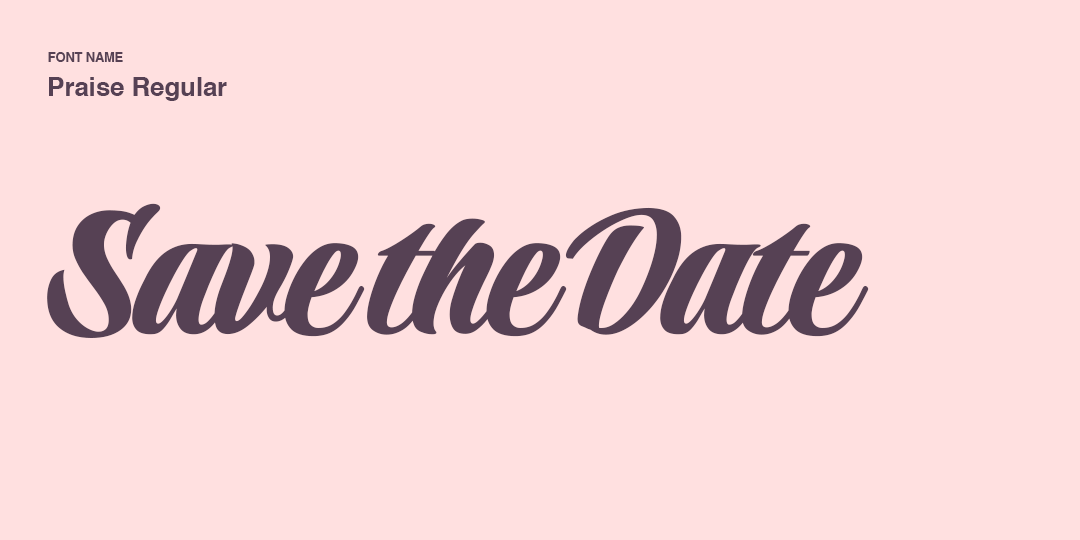
Real experience: I've used this in 15+ invitations, and it never fails to impress.
2. Russkopis
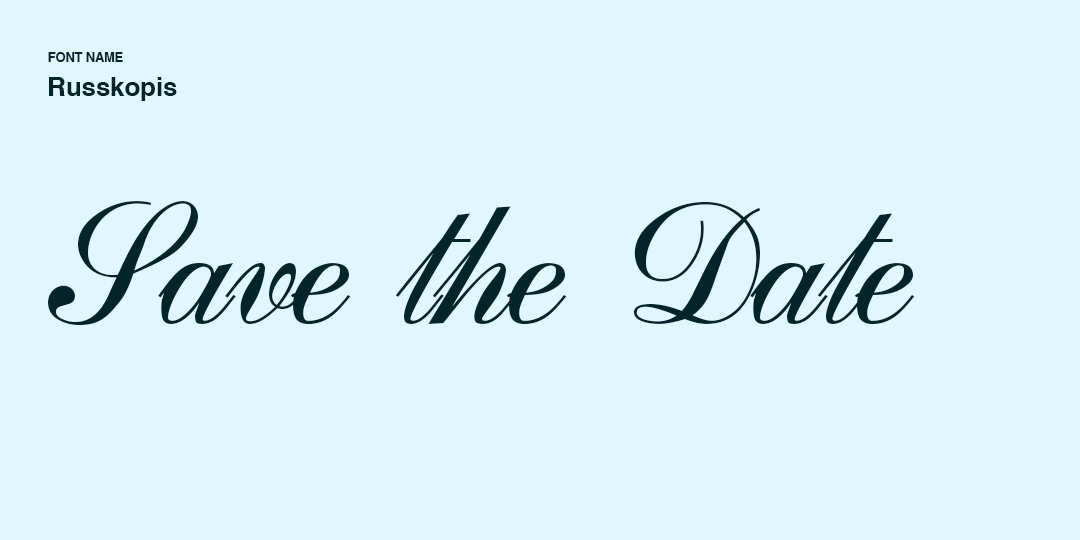
3. Amoresa Aged
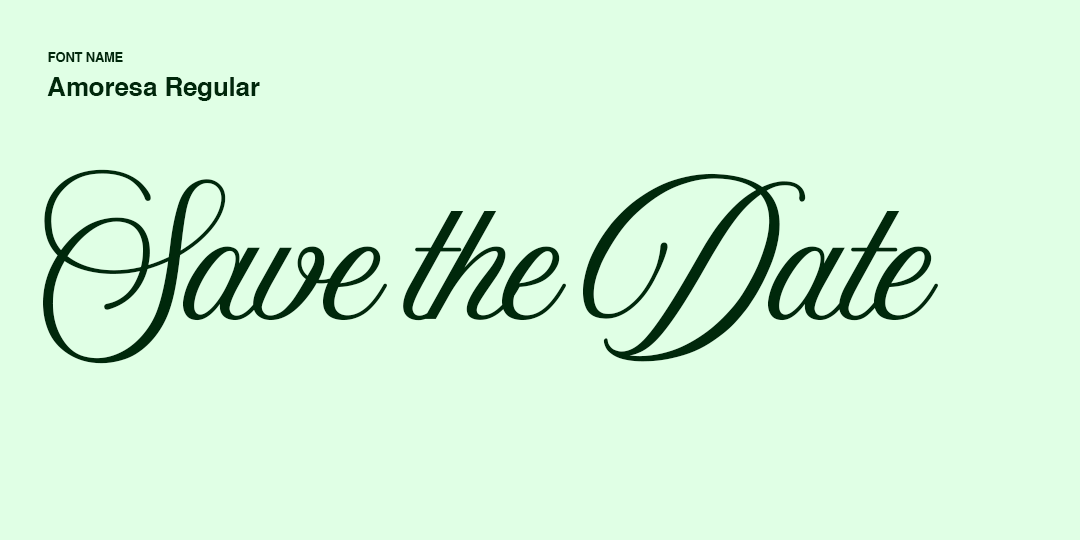
4. Fineday
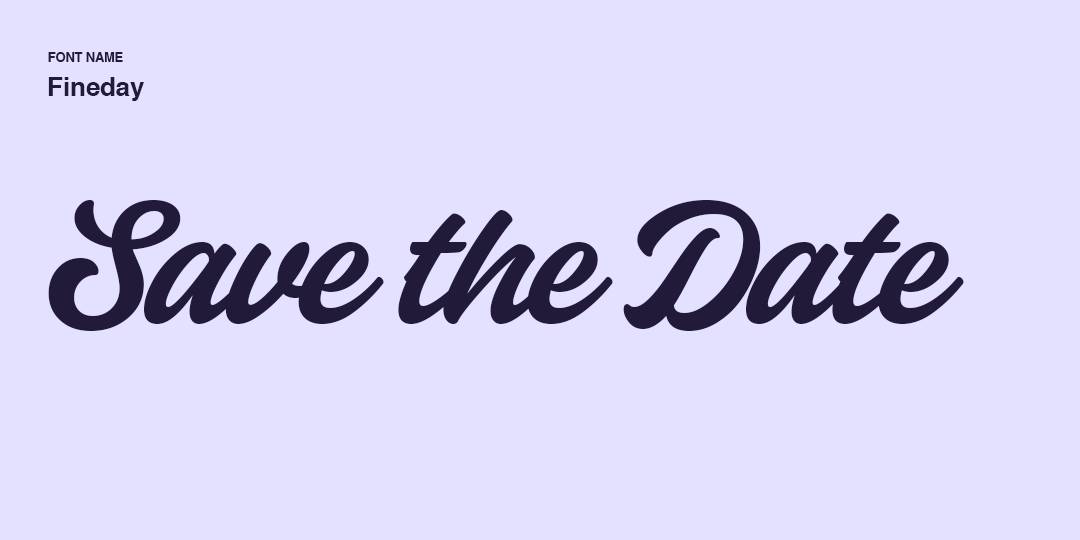
I often come back to this font whenever I’m designing pastel or floral-themed weddings. It has a soft, romantic flow that perfectly matches the mood of such celebrations.
5. Playlist Script
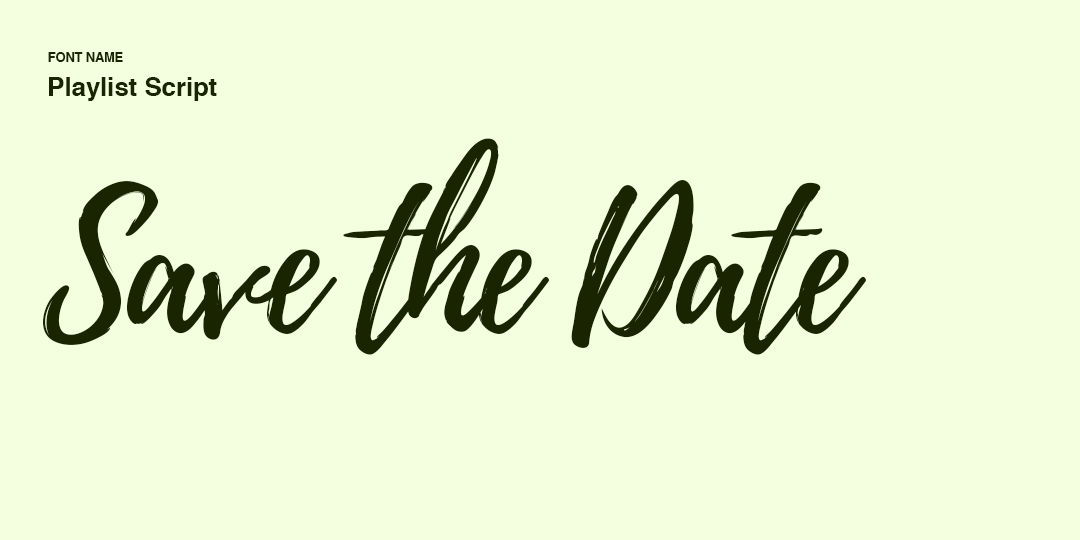
6. Buffet Script
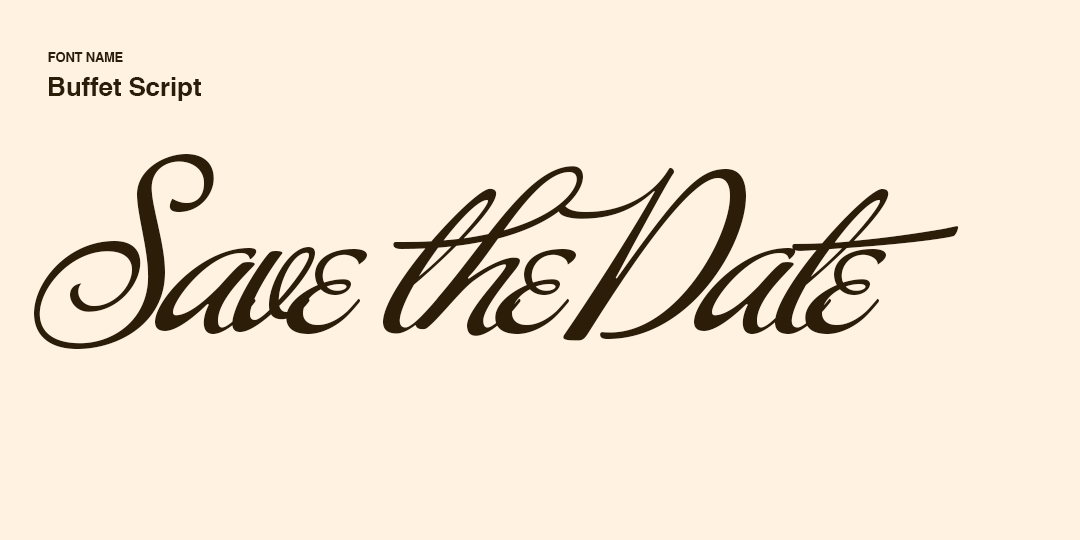
I’ve chosen this font many times for premium wedding invitations. Its refined calligraphic style makes it ideal for elegant ceremonies and high-end stationery where couples want something extra classy.
7. Italianno
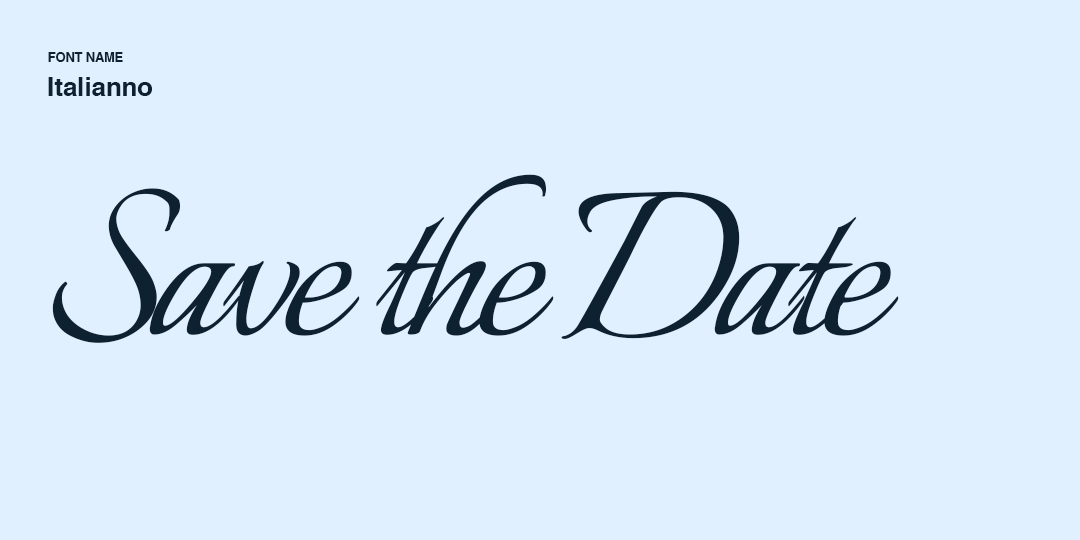
Italianno is a font I always enjoy working with. I’ve used it across 10+ romantic wedding invites, and it adds that smooth handwritten elegance that makes any invitation feel sophisticated and heartfelt.
8. Hot Salsa
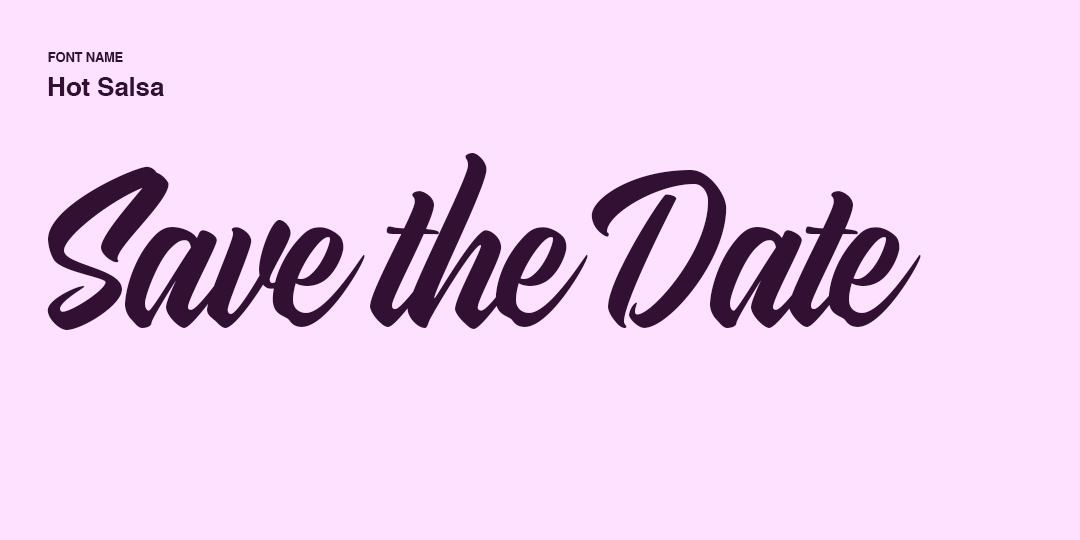
9. Script MT Bold
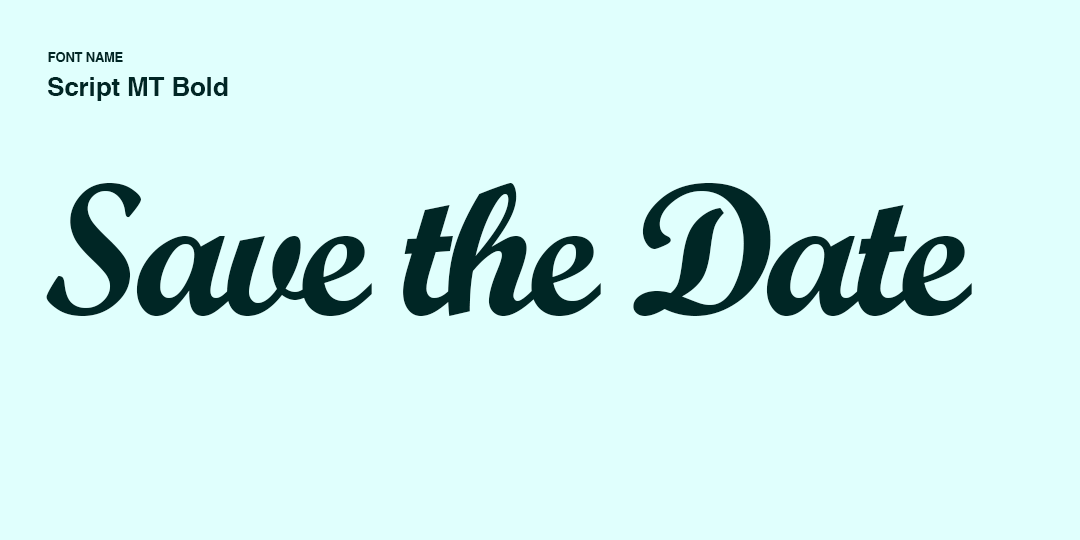
10. Storefront Pro
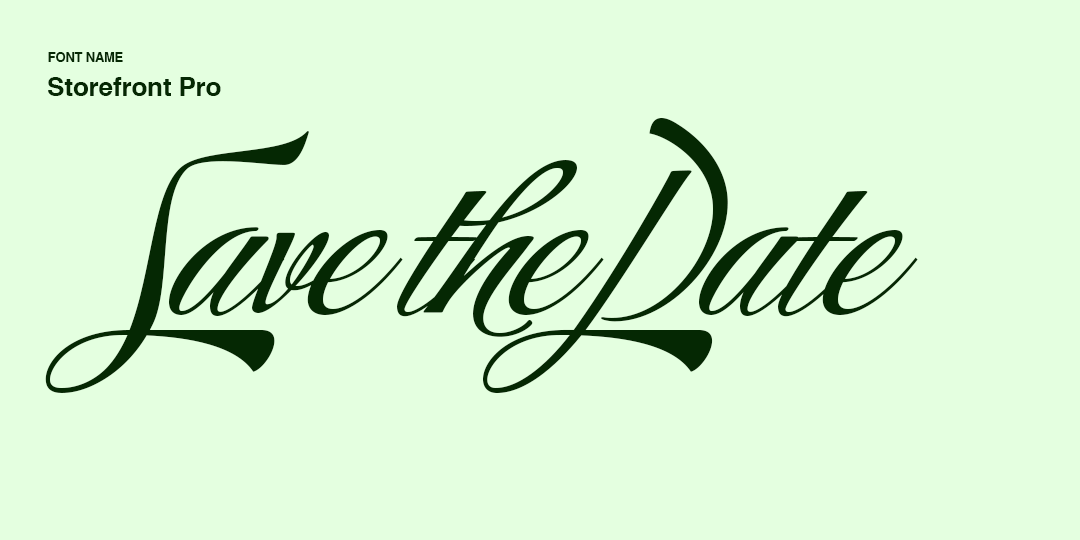
❤️ This font is one of my personal favorites. I’ve used it in more than 10 wedding invites, and it always brings that timeless, handcrafted look that couples really love.
Font Pairing Guide for the 10 Best Wedding Invitation Fonts (2025)
What's Actually Trending in 2025 (From My Recent Projects)
Honestly? I'm seeing couples move away from those "perfect" Pinterest fonts everyone was obsessed with.
This year, my clients are looking for fonts that feel more authentic, like actual handwriting rather than computer-generated perfection. The Russkopis and Fineday fonts I use have these tiny imperfections that make invitations feel personal.
The biggest trend, though? Bold contrasts. Think script & handwritten fonts for couple names paired with clean serif or sans-serif fonts for details. It's dramatic without being over-the-top.
Wrapping Up: Your Font Journey Starts Now
Look, choosing wedding fonts doesn't have to be overwhelming. Start with your venue and theme, consider your guests, and remember that readability always trumps trendiness.
I've seen $50 invitations with perfect typography outshine $500 invitations with poor font choices. It's not about budget, it's about making intentional decisions.